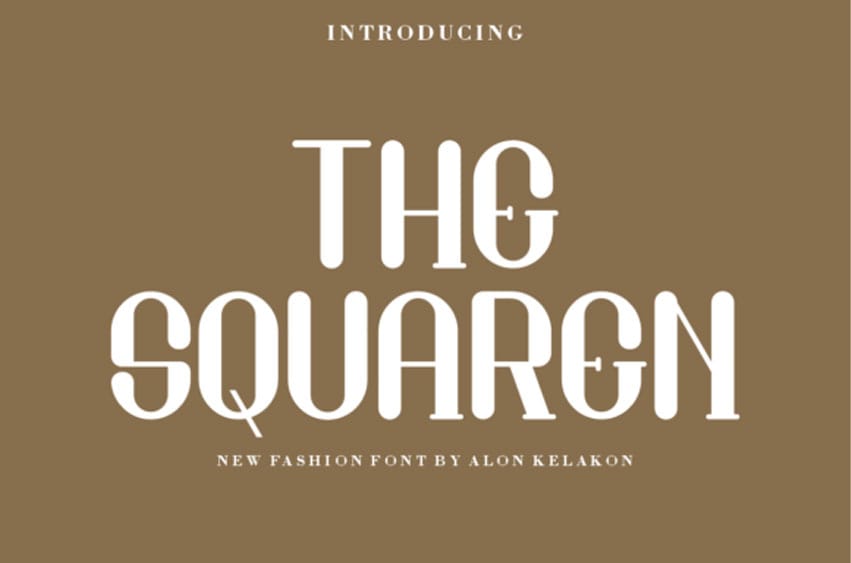
The Squaren Font
The Squaren Font is an elegant and rounded font designed to be used as a display slab serif. It adapts wonderfully in contexts such as designing labels for perfumes, cosmetics, magazine covers, posters, manifests, flyers, social posts, and fashion.